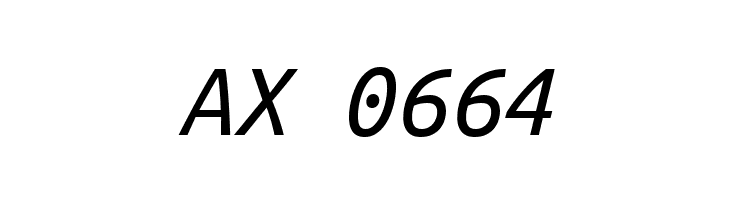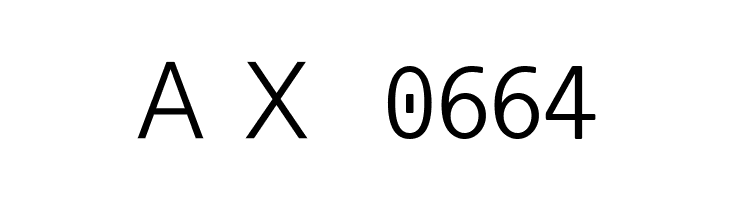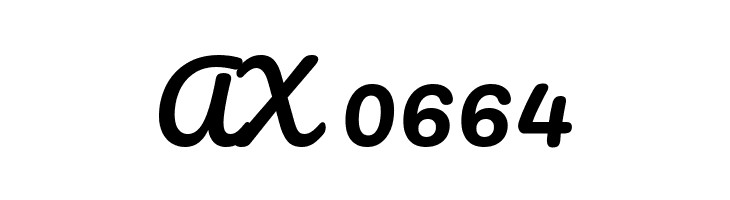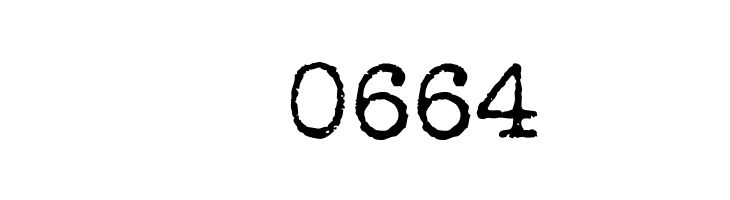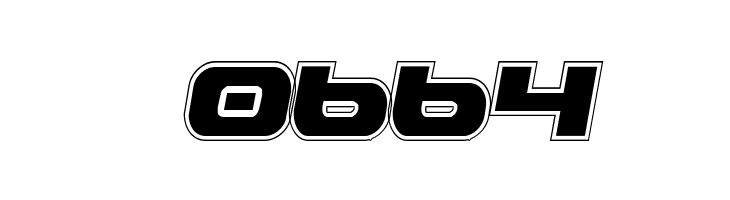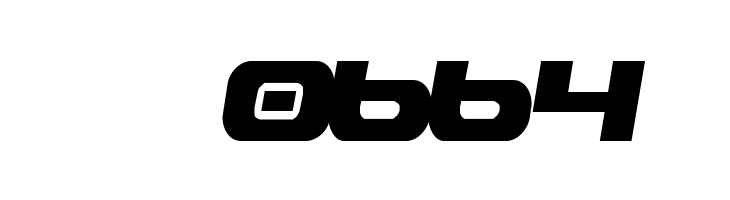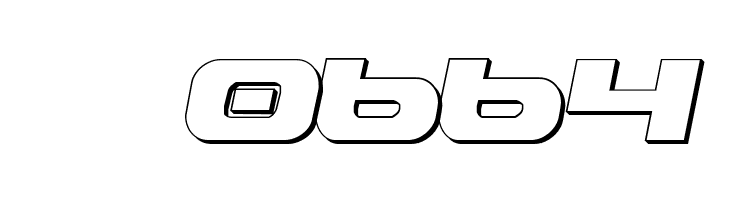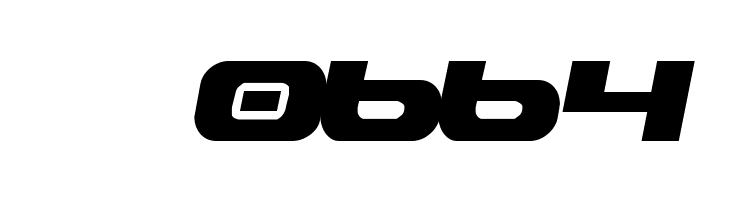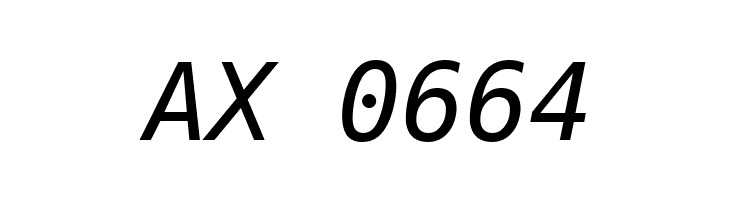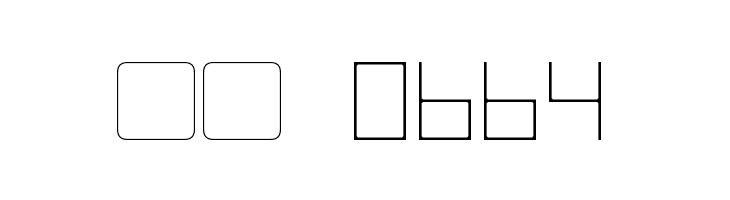
A modern, monospaced italic font with low contrast and uniform spacing.
A bold, monospaced typeface with a modern and clean design.
A clean, modern monospaced font ideal for coding and technical documentation.
A playful, flowing script font with bold, rounded strokes.
A vintage typewriter-style font with a monospaced, slab serif design and a slightly distressed look.
A bold, modern font with a sleek, condensed design and angular geometric shapes.
A bold, futuristic font with slanted characters and a dynamic style.
A bold, geometric font with outlined characters and a futuristic style.
A bold, futuristic, and condensed font with sharp angles and a geometric style.
A bold, 3D-effect font with a futuristic and geometric design.
A bold, futuristic font with angular, geometric shapes and a dynamic slant.
A futuristic, geometric font with angular lines and a modern aesthetic.
A bold, geometric display font with a retro arcade-inspired style.
A bold, geometric font with rounded edges and a modern style.
A clean, modern monospaced typeface ideal for coding and technical documentation.
A bold, distressed font with a gritty, textured appearance.
A bold, futuristic font with geometric and angular letterforms.
A bold, futuristic font with a halftone effect and geometric design.
A dynamic, angular italic font with a futuristic and edgy style.
A futuristic, angular italic font with a sleek, geometric design.
A bold, italicized font with a futuristic, angular design.
A playful, casual handwritten font with dynamic, flowing strokes.